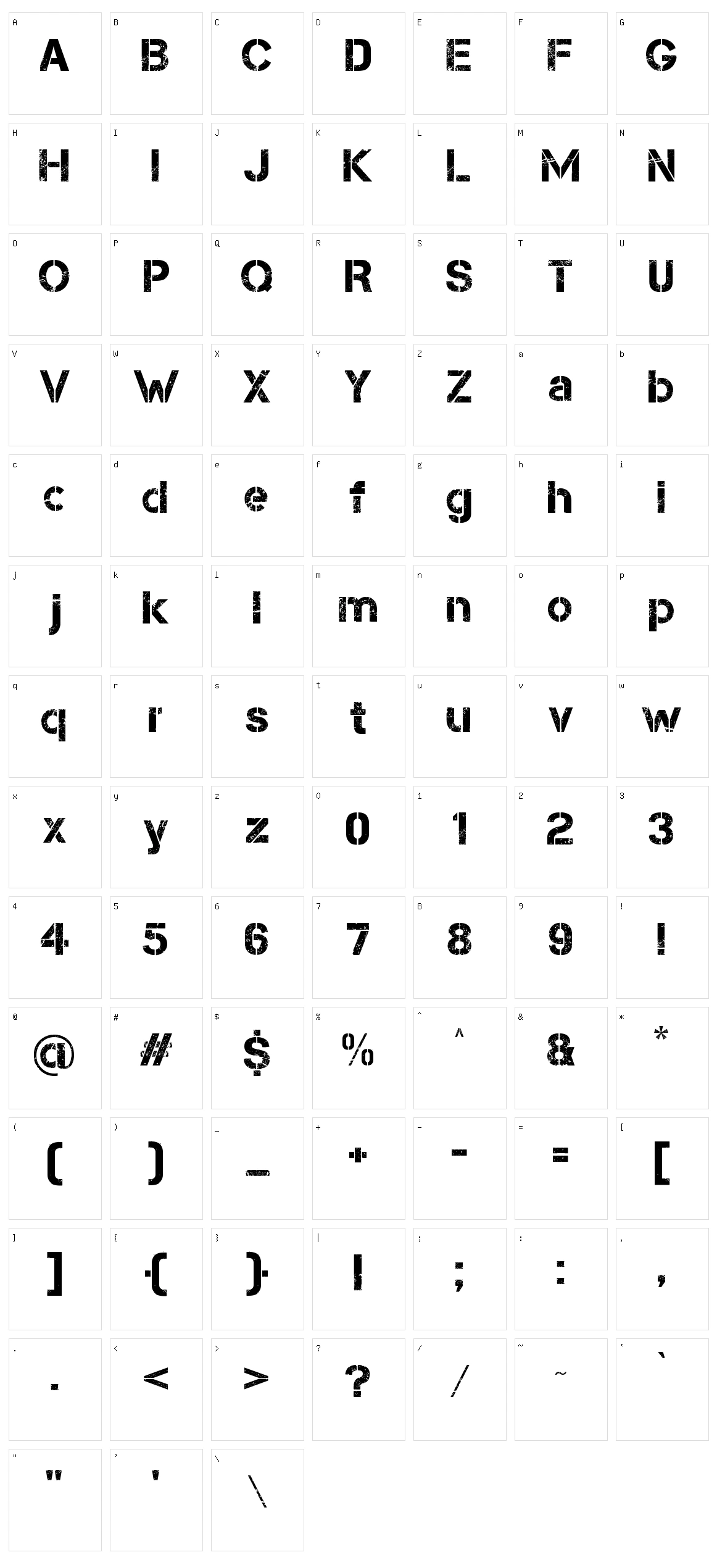
The free font Capture Smallz is carefully designed by Magique Fonts, showcasing a thoughtful balance of creativity and usability and falls under the Stencil font style. When you download the ZIP file, it contains only 281.42 KB of font files, making it lightweight and quick to download. Please review the license details below to understand permitted usage and distribution rights. If license information is not available, we recommend using this font for personal projects only or contacting the author directly for commercial usage permissions.